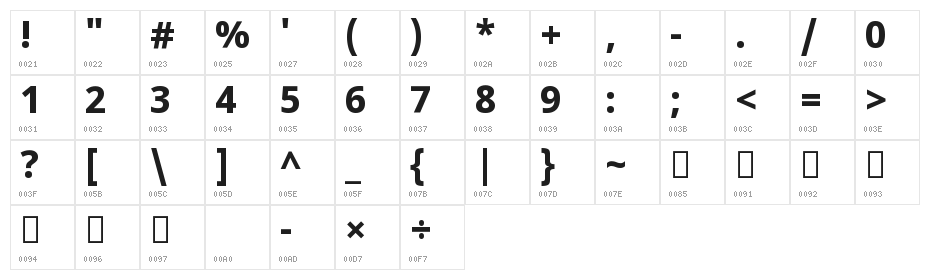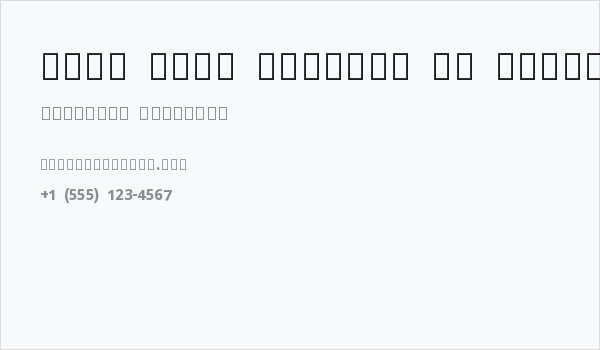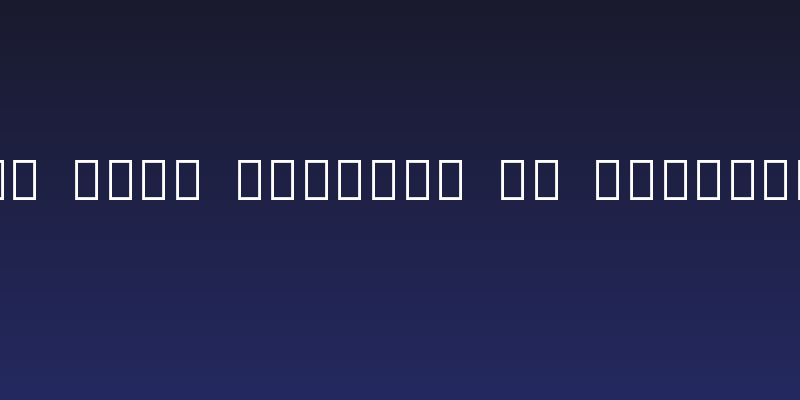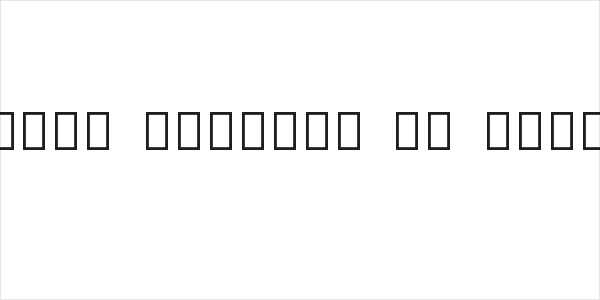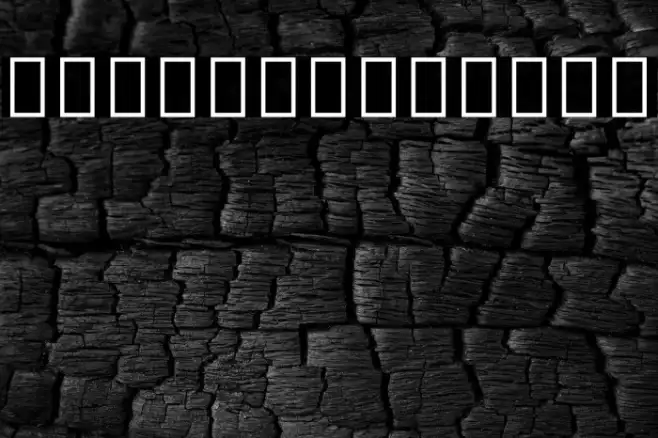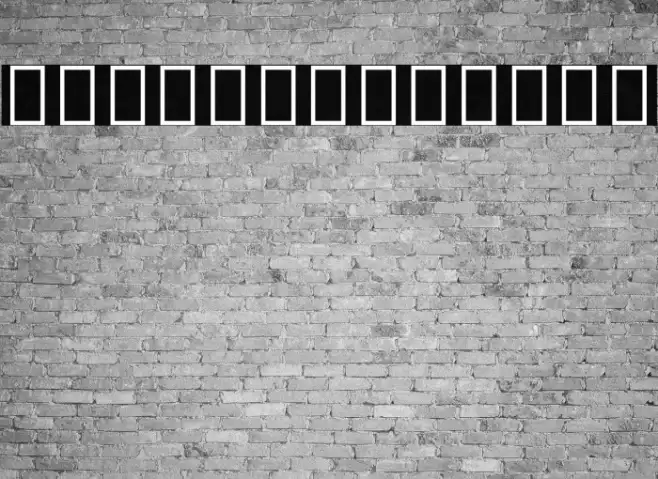
Noto Sans Sinhala UI ExtraBold Font
Noto Sans Sinhala UI ExtraBold Description
This font is a bold and modern sans-serif typeface, characterized by its clean lines and robust structure. The numerals are distinct and clear, making them highly legible. The special characters are well-defined, providing a strong visual impact. This font is designed for high readability and is suitable for digital interfaces, ensuring clarity and precision in various applications.
| Use Case | Headlines, User Interfaces, Digital Content |
| Proposed Projects | Ideal for user interfaces, digital content, headlines, and branding materials where clarity and impact are essential. |